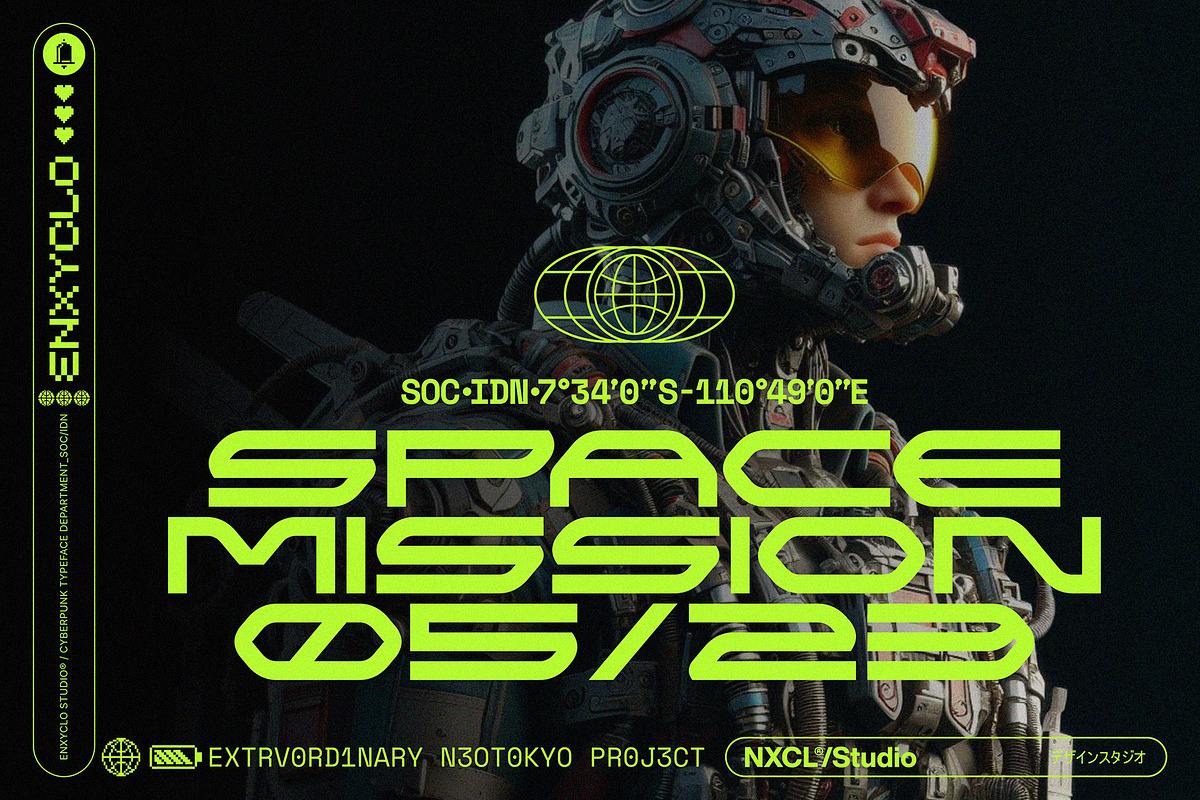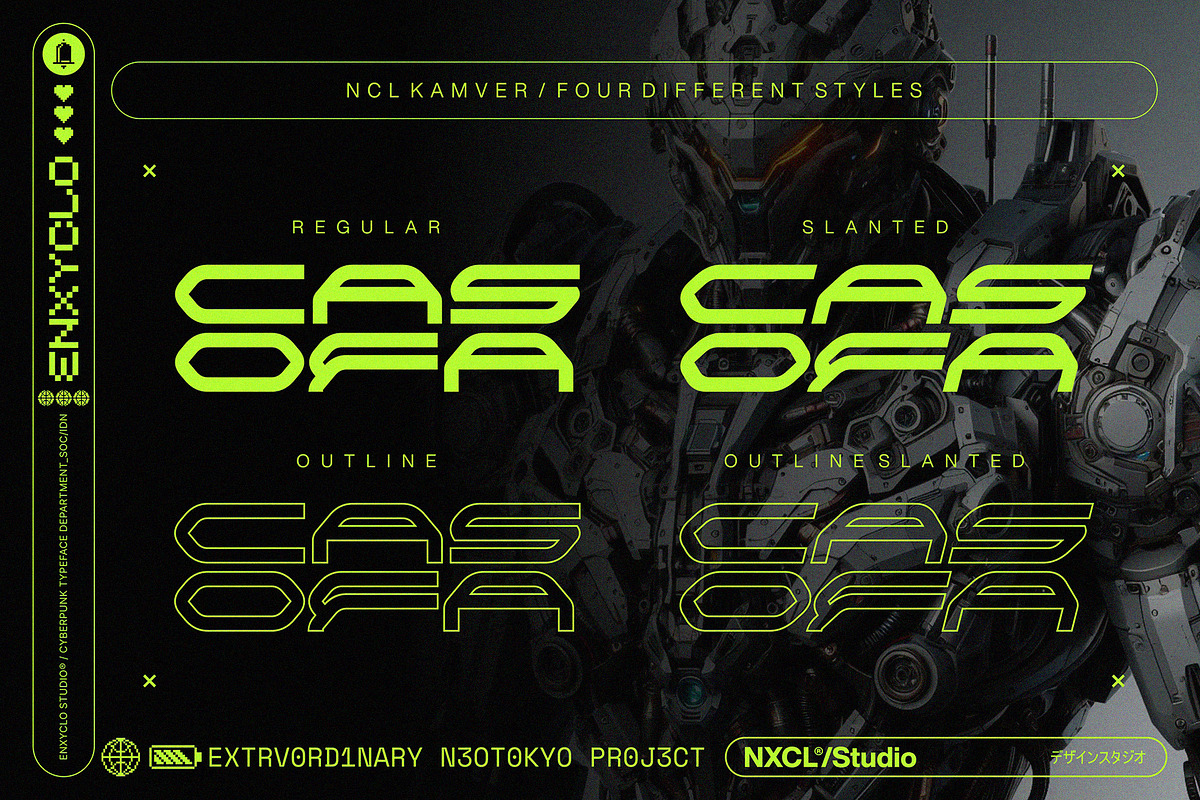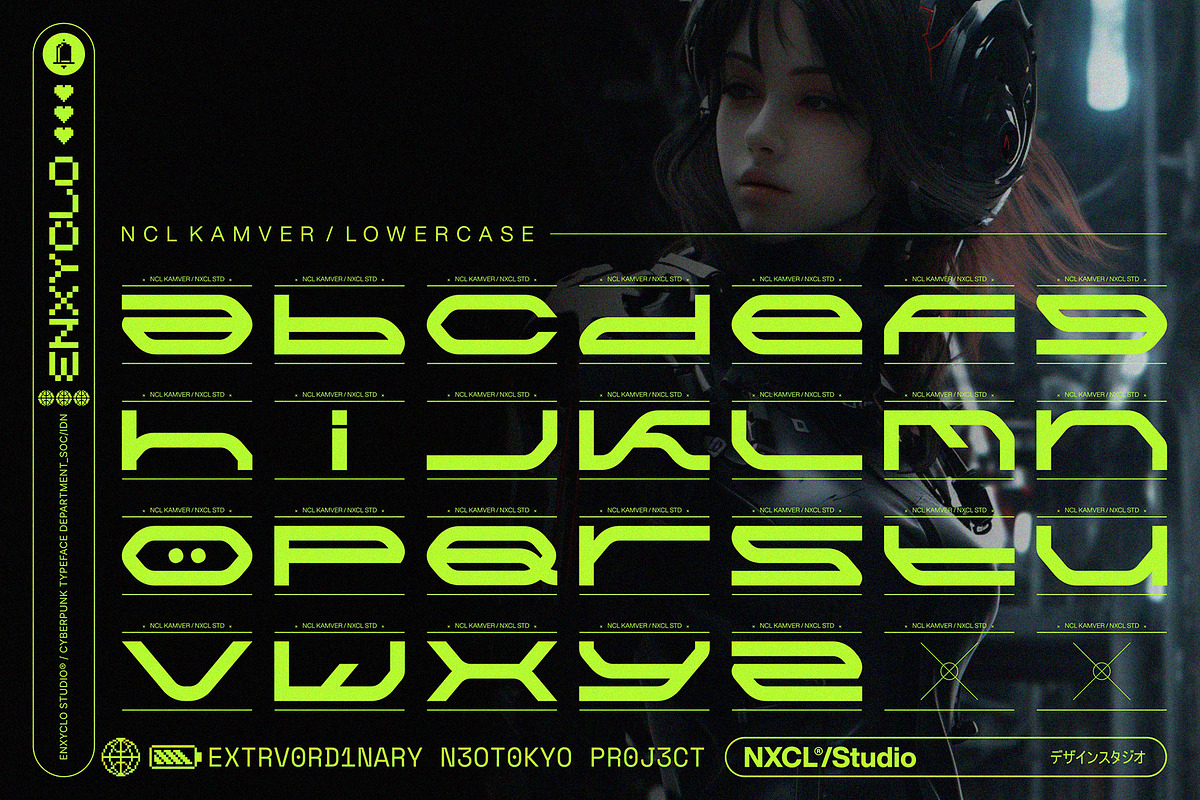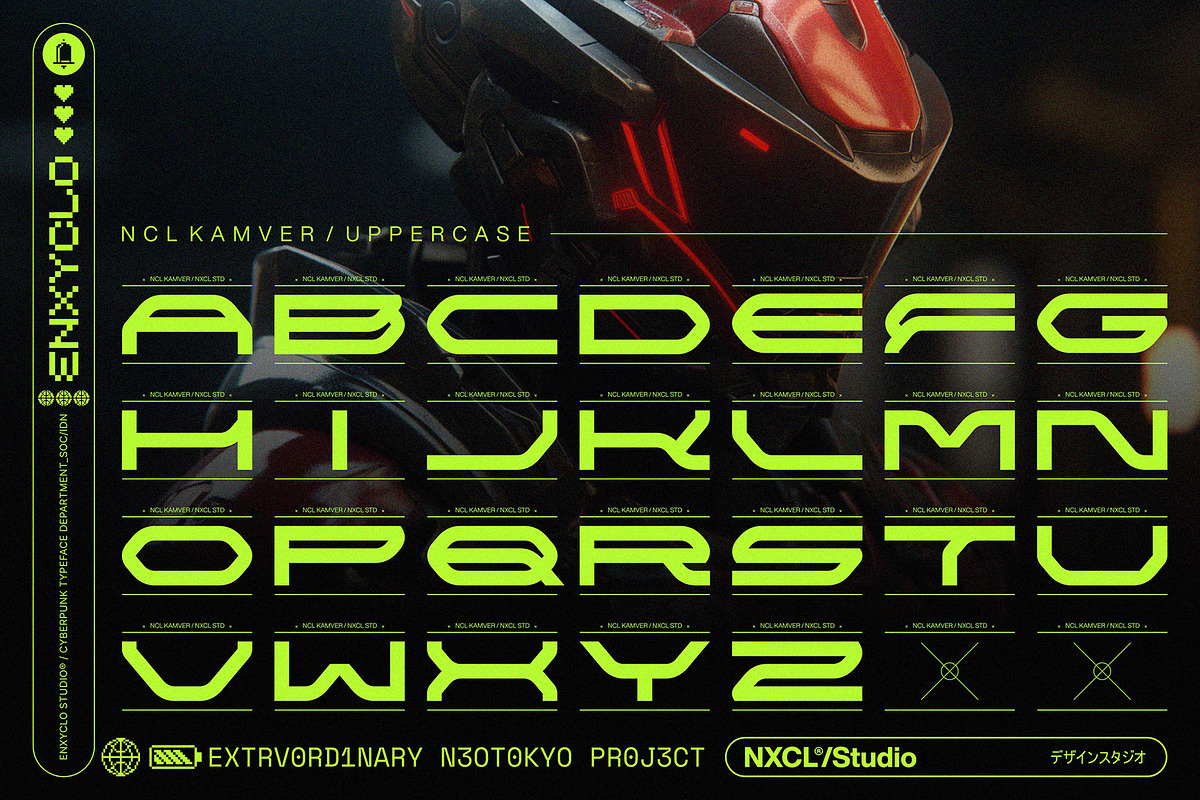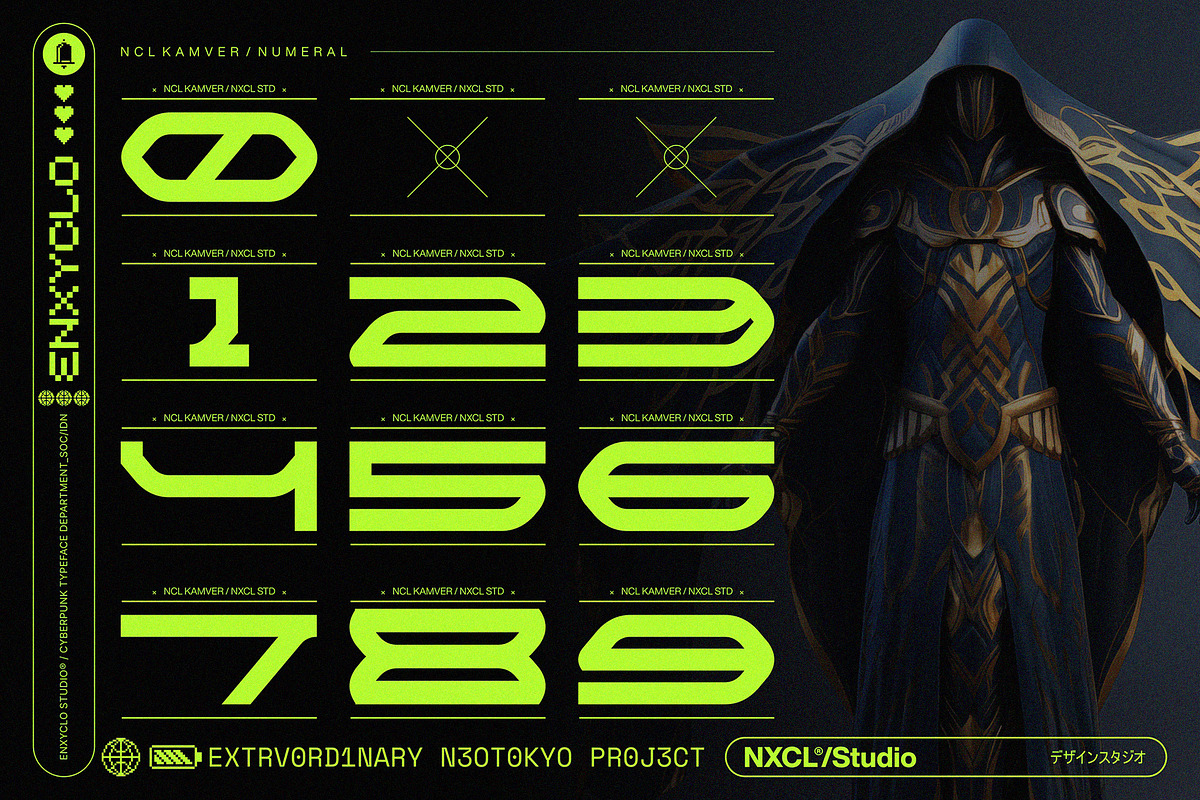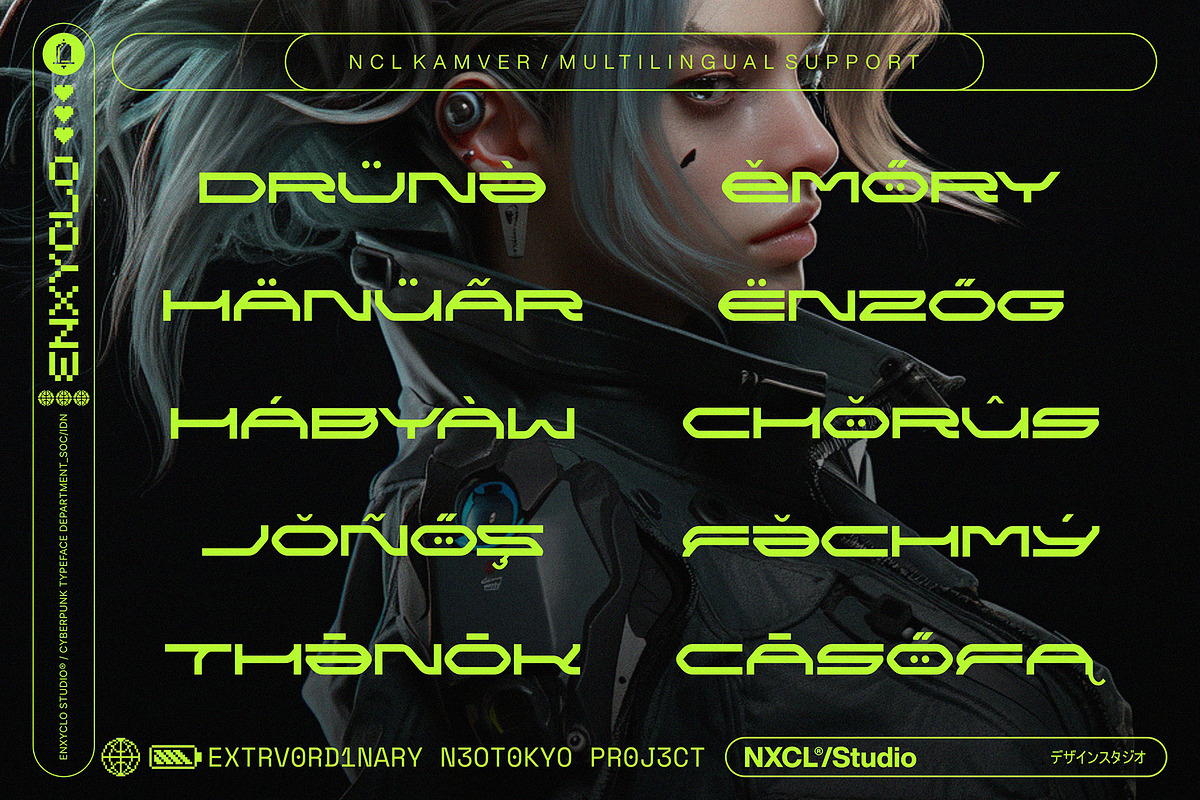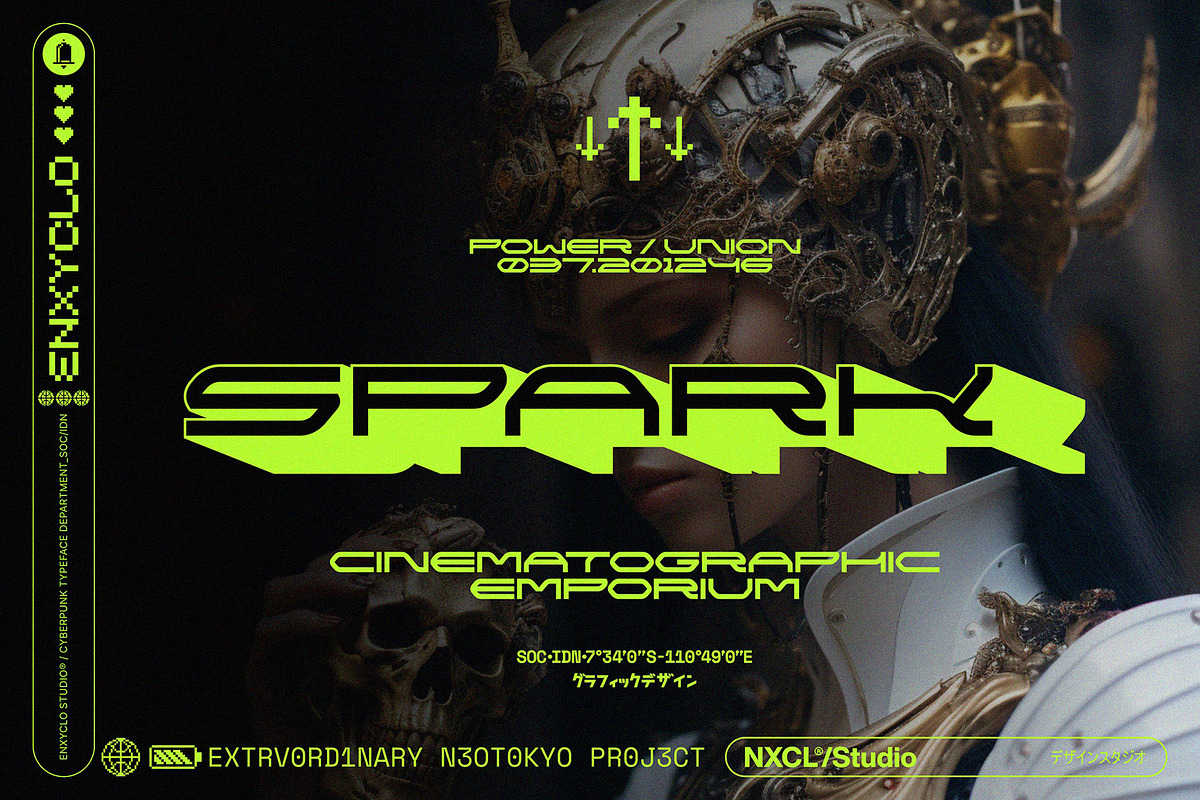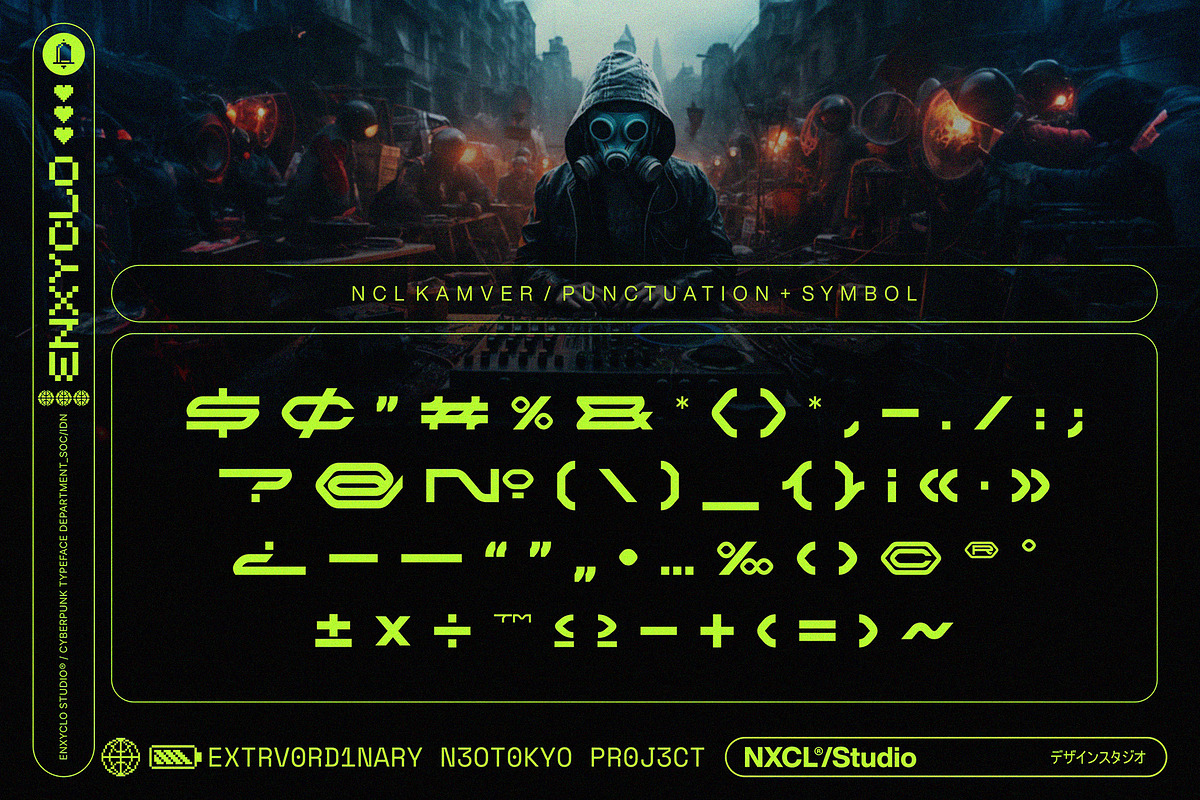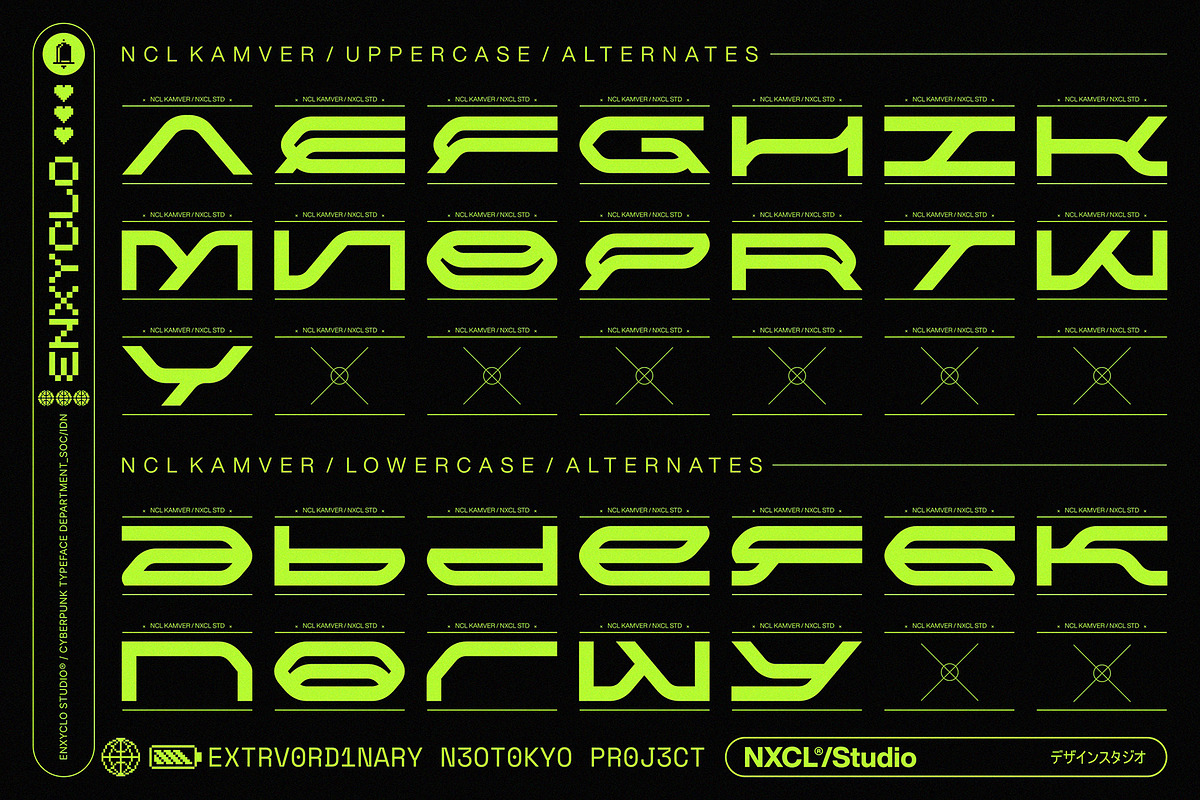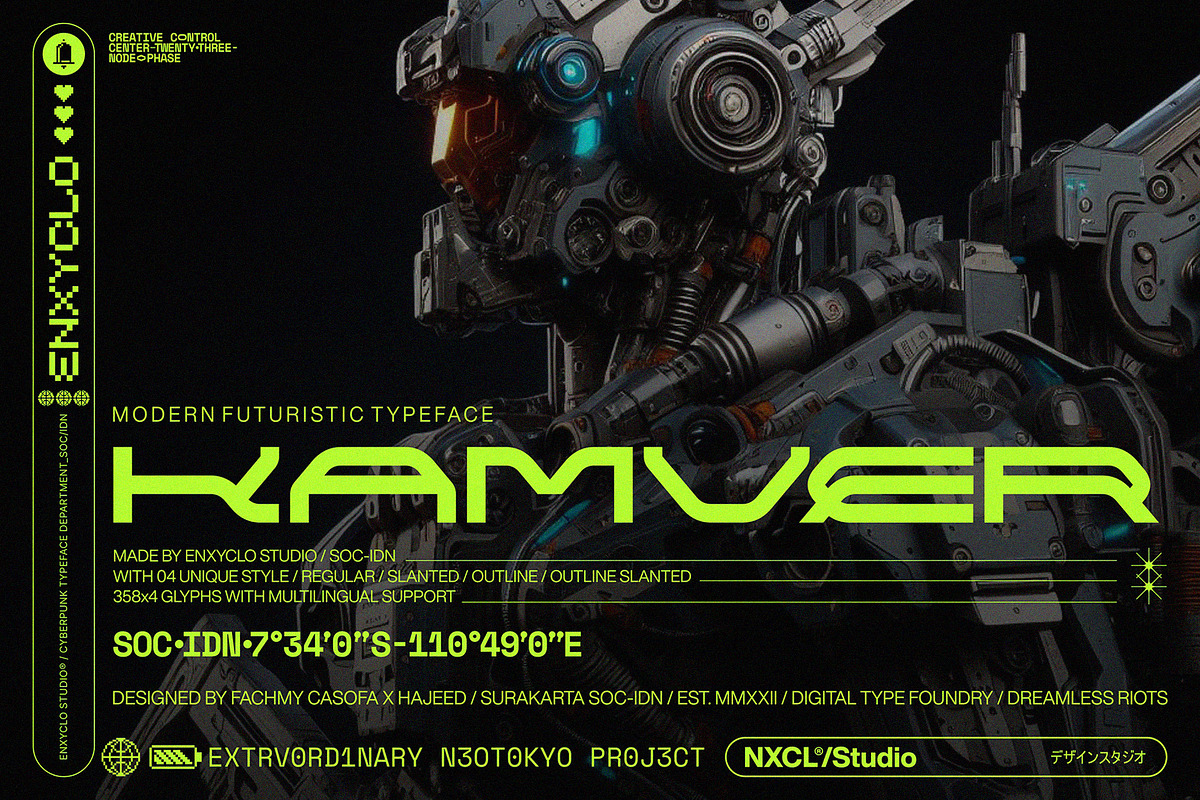
NCL Kamver - Modern Space Font
NCL Kamver is not your ordinary font. It’s a modern cyberpunk futuristic techno mecha font that takes your creativity to the next level. Its futuristic aesthetics bring a whole new dimension to your designs, making them stand out. Whether you’re working on a website, poster, logo, or any other project, this font adds that extra touch of innovation and sophistication.
- 4 Style: Regular, Slanted, Outline, Outline Slanted
- Contains 358 Glyphs
- Numeral, Punctuation & Symbols